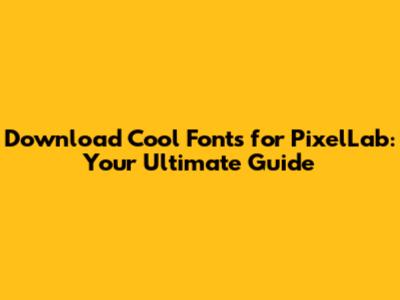
- Enhance Branding: If you're creating logos or social media graphics for a brand, specific fonts can reinforce brand identity and consistency. Imagine using the same font across all your marketing materials – it creates a cohesive and professional look.
- Boost Creativity: Different fonts evoke different moods and styles. A playful font might be perfect for a children's event, while a sleek, modern font suits a tech company. The right font can significantly impact the overall feel of your design.
- Stand Out from the Crowd: Using unique fonts helps your designs stand out. In a world saturated with content, distinctive typography can capture attention and make your work memorable.
- Express Personality: Fonts let you add a personal touch to your designs. Whether you're a minimalist or a maximalist, there's a font that perfectly captures your style.
- Google Fonts: This is a goldmine! Google Fonts offers a massive library of fonts, all free to download and use. It's a fantastic starting point, with a wide variety of styles. They're also super easy to integrate into your projects. The website is user-friendly, and you can easily browse by category, popularity, or even the type of design you're working on.
- DaFont: DaFont is another popular choice, featuring thousands of fonts. They're categorized, making it easy to find what you're looking for. Keep an eye out for licensing, as some fonts are free for personal use only. It's a great place to discover unique and creative fonts.
- Font Squirrel: Font Squirrel is known for its high-quality, free fonts. They also have a good selection of commercial-use fonts, making it a great option for professional projects. They offer a font identifier tool, which is super handy if you see a font you like but don't know the name.
- BeFonts: BeFonts is another cool site where you can download fonts for PixelLab. It's got a nice collection, and it’s worth checking out for those hidden gems. You'll find a variety of styles to suit different design needs. Make sure to double-check the license before using them in commercial projects.
- Creative Market: If you're looking for premium fonts, Creative Market is an excellent option. They offer a wide range of beautifully designed fonts from independent creators. You'll need to purchase the fonts, but the quality is usually top-notch. It’s perfect for projects where you need a professional touch.
Hey guys! Ever wondered how to jazz up your PixelLab designs with some seriously cool fonts? You're in the right place! We're diving deep into how to download fonts for PixelLab and make your text pop. Forget boring, standard fonts – it's time to unleash your creativity and make your graphics stand out. This guide is your ultimate companion to mastering the art of font customization in PixelLab. We'll cover everything from finding the perfect fonts to installing them, ensuring your PixelLab experience is as smooth as possible. Get ready to transform your designs from meh to magnificent!
Why Download Fonts for PixelLab?
So, why bother with downloading fonts for PixelLab? Isn't the default selection enough? Well, think of it this way: your creativity deserves the best tools! The default fonts are okay, but they're often limited. Downloading custom fonts opens up a whole new world of design possibilities. It allows you to:
Basically, downloading fonts for PixelLab is like upgrading your art supplies. You wouldn't use dull crayons when you have vibrant paint, right? It's all about making your designs more engaging and effective. Plus, it's a super fun way to explore different styles and find what works best for you. Let's get started!
Where to Download Fonts for PixelLab
Alright, let's talk about where to find these amazing fonts. The internet is your oyster when it comes to downloading fonts for PixelLab, but you want to make sure you're getting them from reliable sources. Here are some of the best places to find free and premium fonts:
When downloading fonts for PixelLab, always check the license. Some fonts are free for personal use only, while others can be used commercially. Make sure your usage aligns with the license terms to avoid any legal issues. Now that you know where to find the fonts, let's move on to the fun part – installing them!